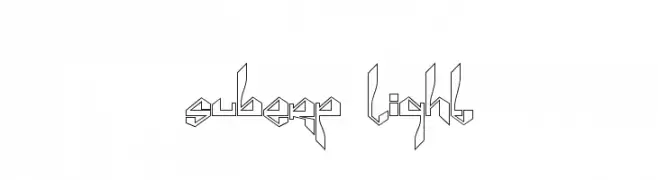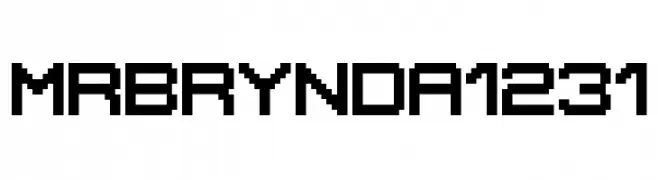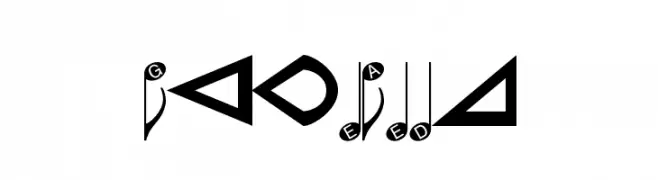
( Fictionalhead Design - Dan Meyer - www.fictionalhead.com/design/portfolio/#type-fonts )
A playful, handwritten font with smooth curves and a friendly appearance.
( Johannes Siemensmeyer - flickr.com/dergaudens )
A bold, geometric font with sharp angles and a futuristic style.
( Johannes Siemensmeyer - flickr.com/dergaudens )
A geometric, angular font with a futuristic and robotic aesthetic.
( Martina Meyer - www.behance.net/martinamt )
A pixelated, retro-style font with a digital, nostalgic feel.
( Brynda1231 Industries )
A pixelated, blocky font with a retro digital aesthetic.
( Robert Allgeyer - www.icogitate.com/~ergosum/fonts/music-fonts2.htm )
A music notation font for creating sheet music and musical scores.
( Robert Allgeyer - www.icogitate.com/~ergosum/fonts/music-fonts2.htm )
Bold, legible music notation font for scores and teaching.
( Robert Allgeyer - www.icogitate.com/~ergosum/fonts/music-fonts2.htm )
A bold, specialized font for music notation and symbols.
( Robert Allgeyer - www.icogitate.com/~ergosum/fonts/music-fonts2.htm )
A playful font combining musical notes with geometric shapes for a unique, artistic style.
A modern, geometric font with a clean, futuristic design.